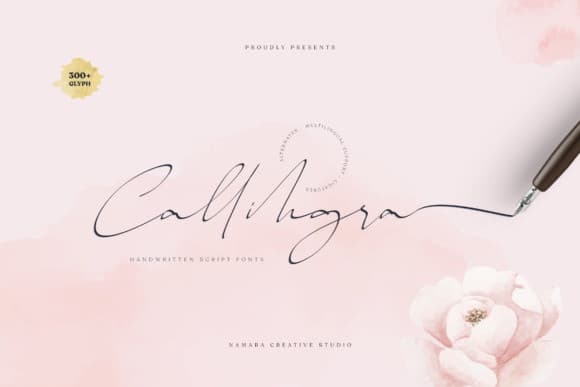
Callihgra Script Font Free
Thanks for checking out Callihgra Script Font. A Latin Pro, writinable and super natural handwriting script fonts. Inspired by nowdays hand lettered trend. This font look very close like natural handwritten on modern script calligraphy nuance. Made from font designer named Namara Creative Studio. This font is a natural handwritten font, Perfect for logos, invitations, stationery, wedding designs, social media posts, advertisements, product packaging, product designs, labels, photography watermark, special events or anything.
Callihgra Script Font comes with full set of uppercase and lowercase letters, lowercase ending swashes, multilingual support, numerals and punctuations.